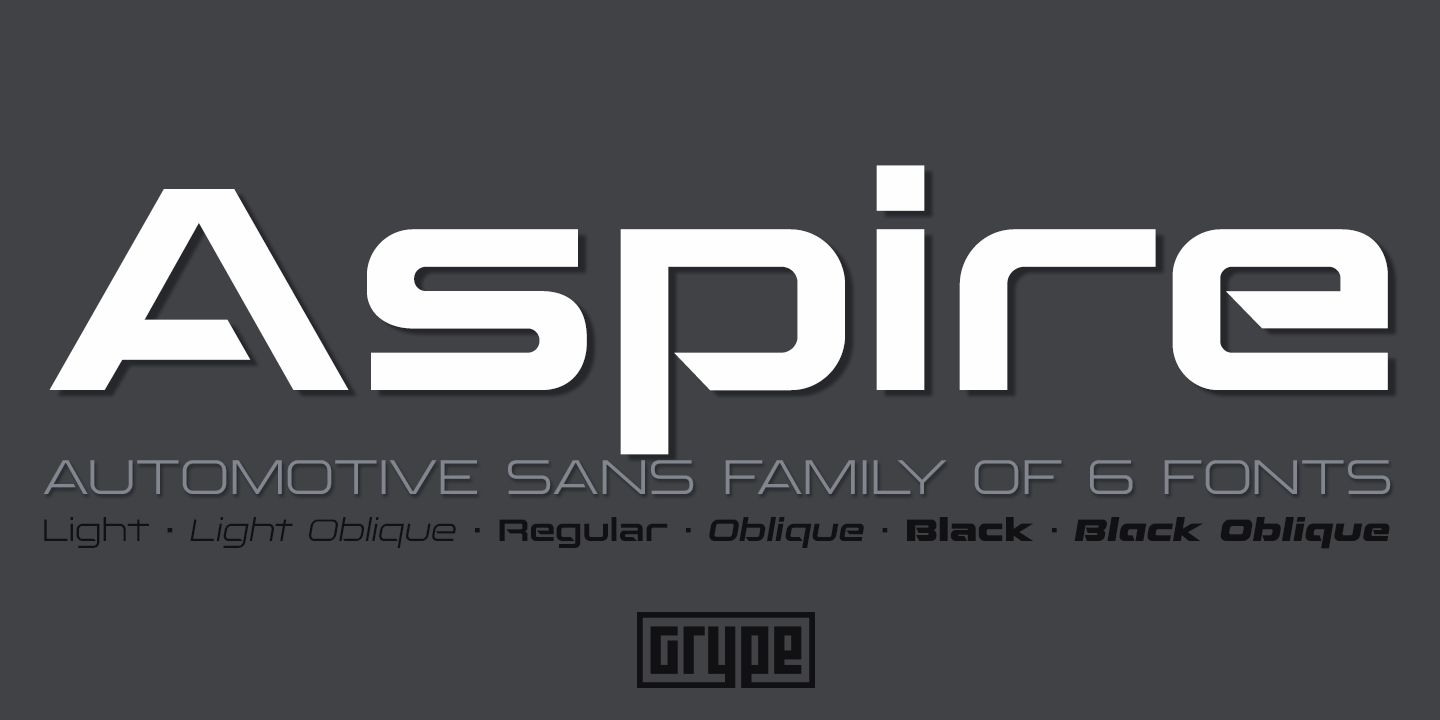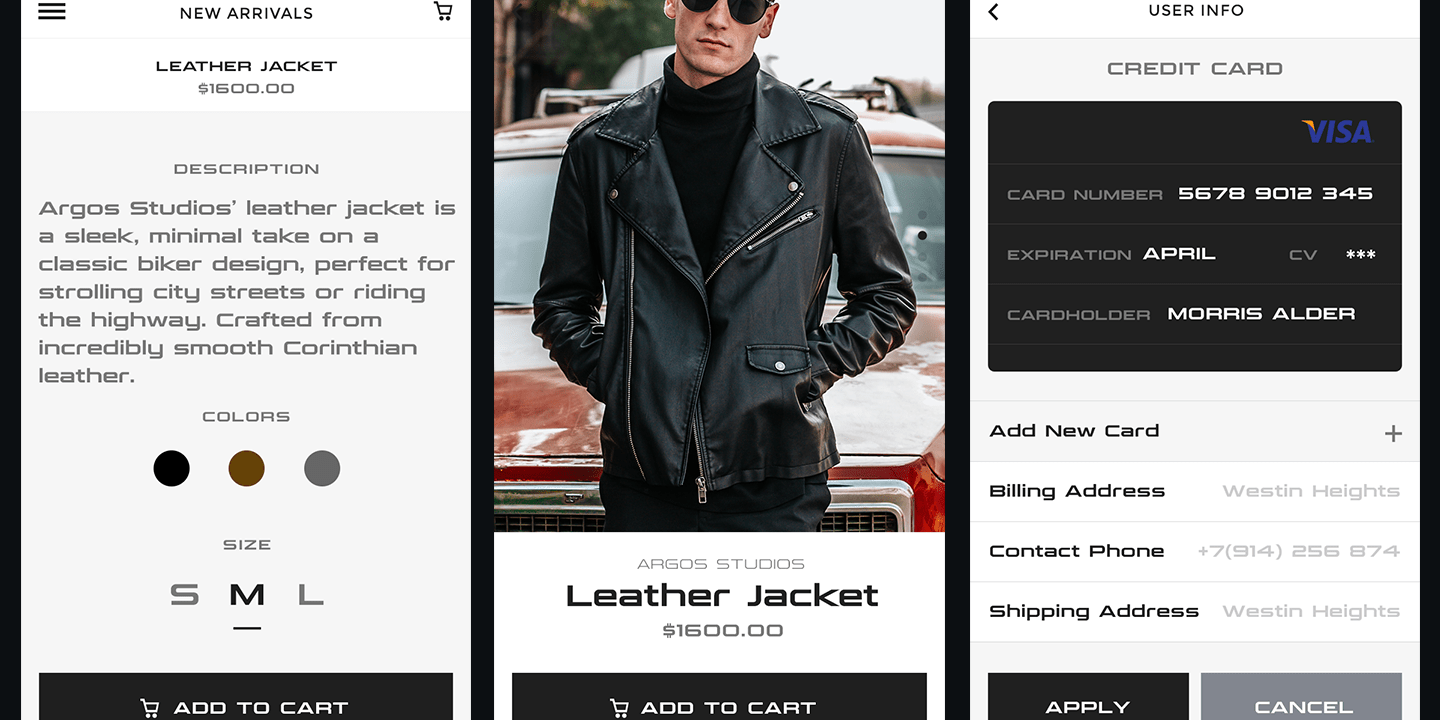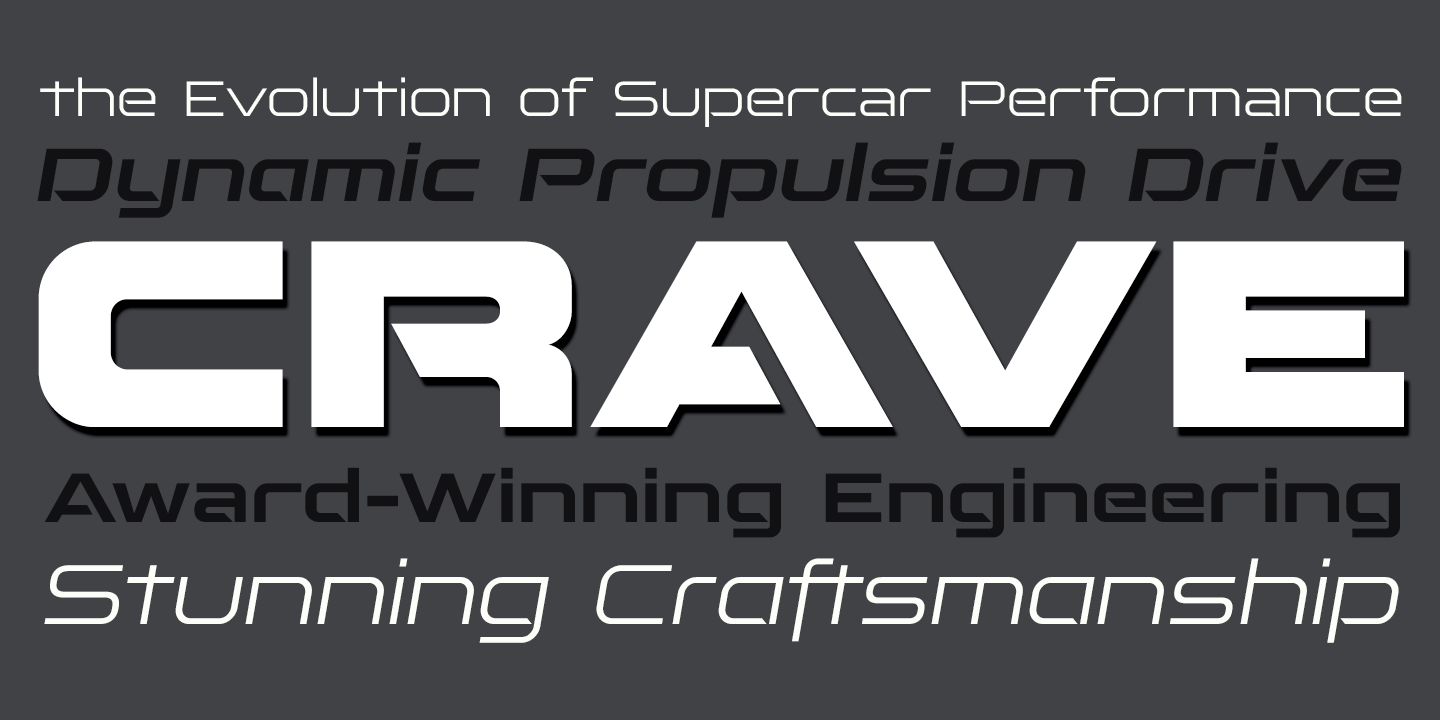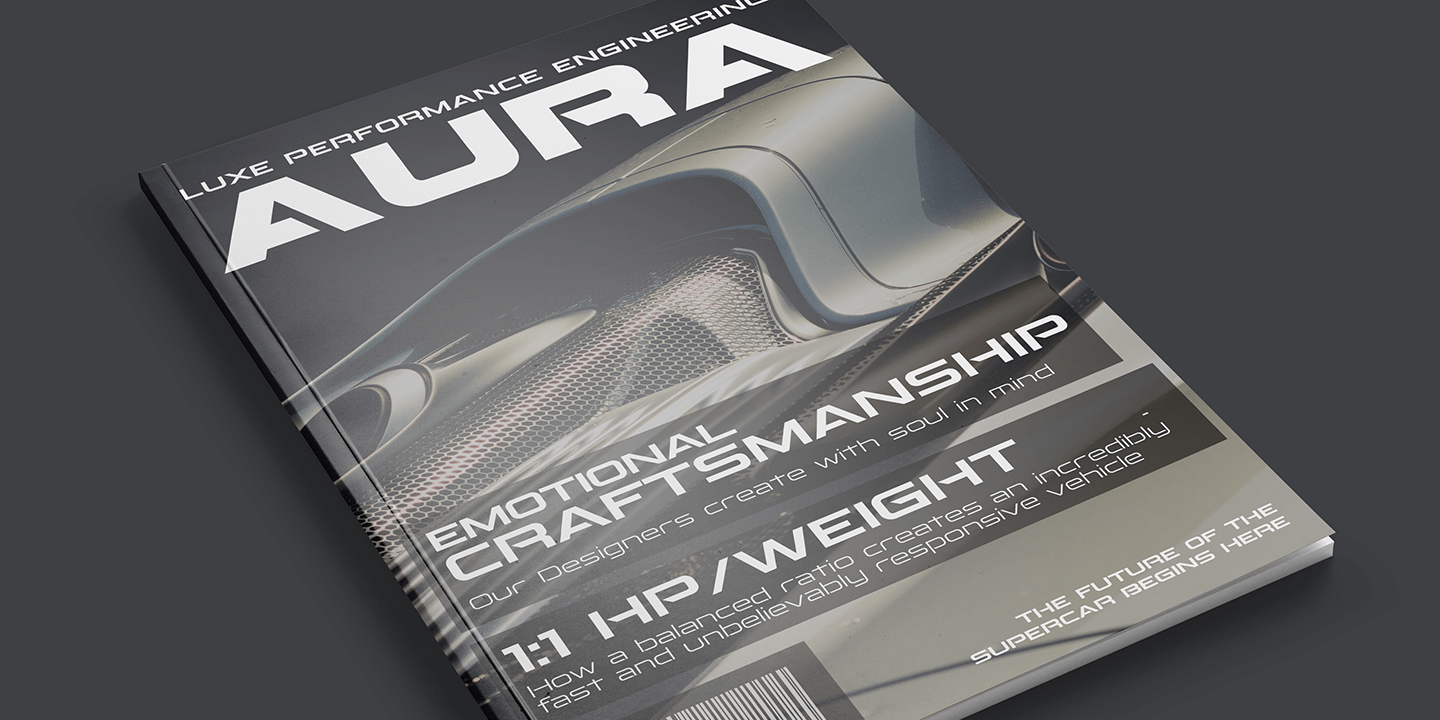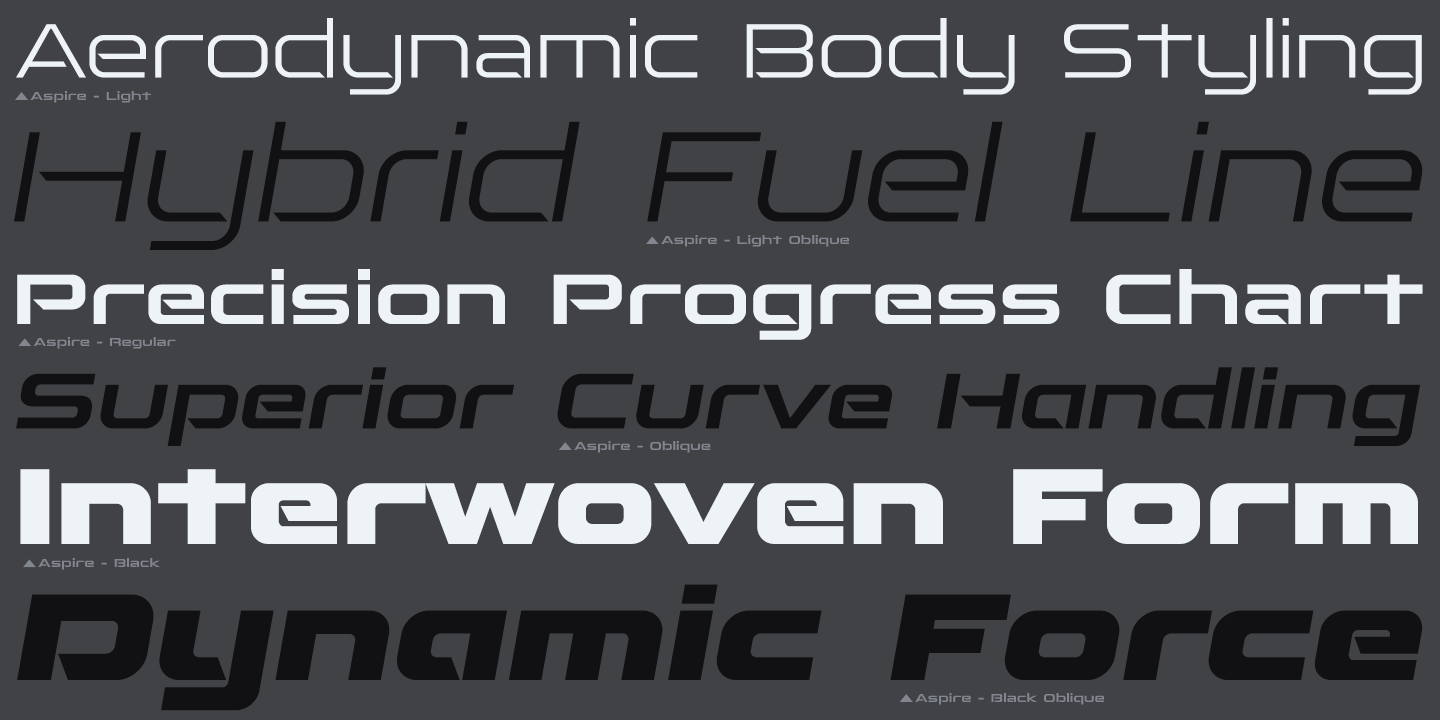
Aspire
Geometric/Technical style logotypes have been developed for car chrome labels since the early 1980's. The styles are loaded with inspiration for great font families, but surprisingly, many of these sleek logotypes lack an expansive family to enhance and express their brand in a richer sense, becoming true brand workhorses. The Aspire family finds its origin of inspiration in the ACURA automotive company logo, and from there expands to a 6 font family of weights & oblique styles.
Aspire pays homage the techno display styling of the inspiration logotype, further evolving beyond its brand-inspired origin to give birth to a font family that pulls on modern and historical styles. It adopts a sturdy yet approachable style with its uniform stroke forms and curves and goes on to include a lowercase, numerals, and a comprehensive range of weights, creating a straightforward, uncompromising collection of typefaces that lend a solid foundation and a broad range of expression for designers.
477 glyphs per style - including capitals, lowercase, numerals, punctuation, and an extensive character set that covers multilingual support of Latin-based languages.
Stylistic Alternates - alternate characters that remove the angled stencil cuts for a more standardized text look. 3 weights in the family: Light, Regular, & Black.